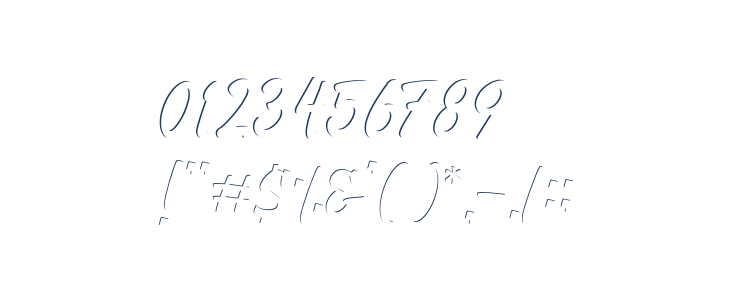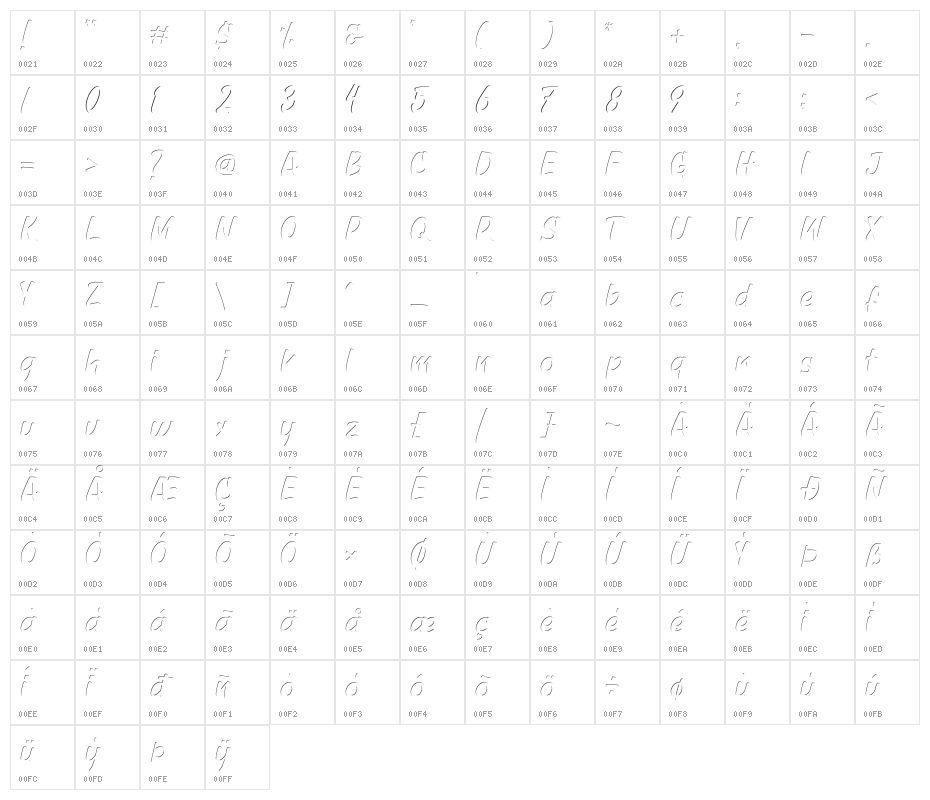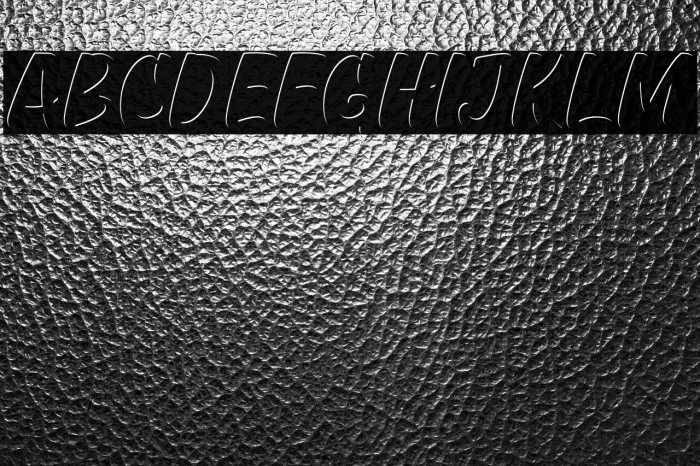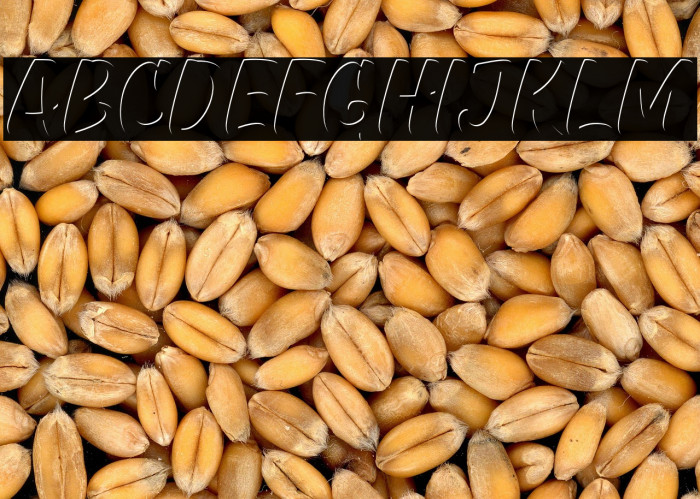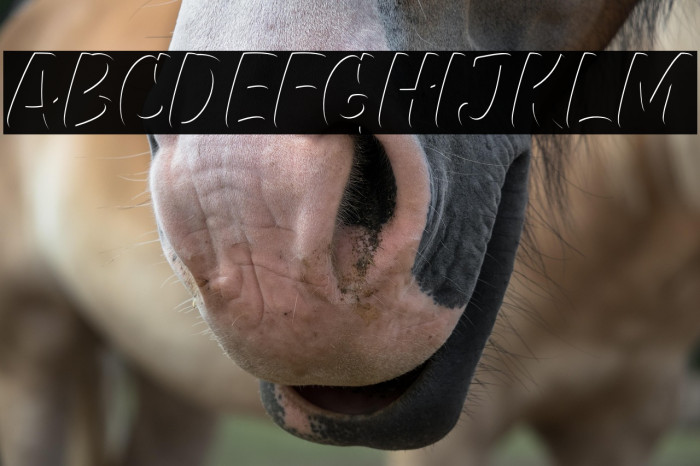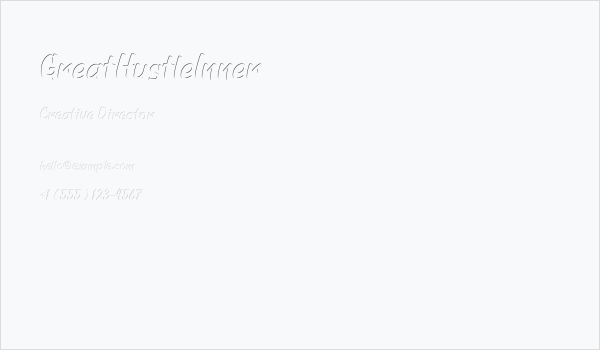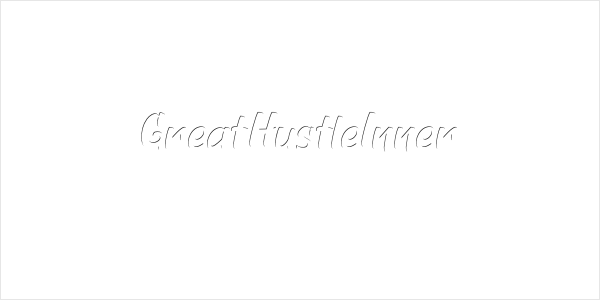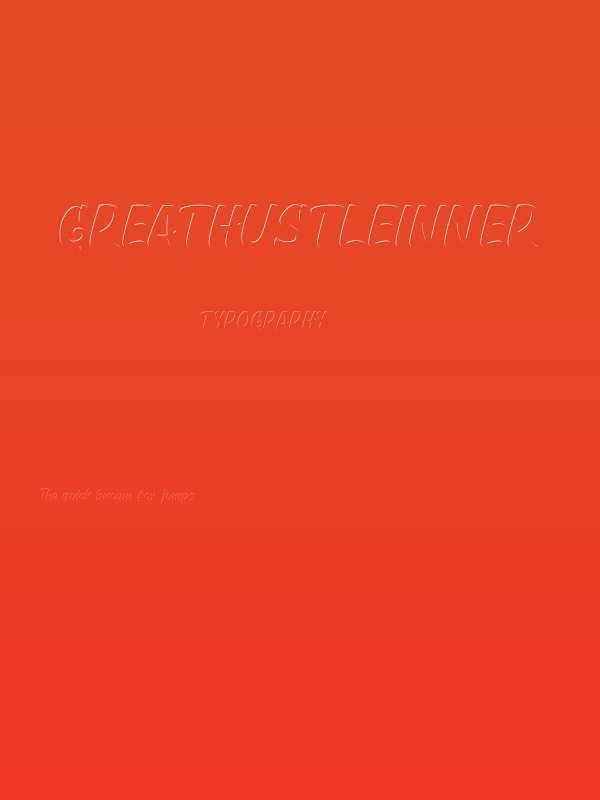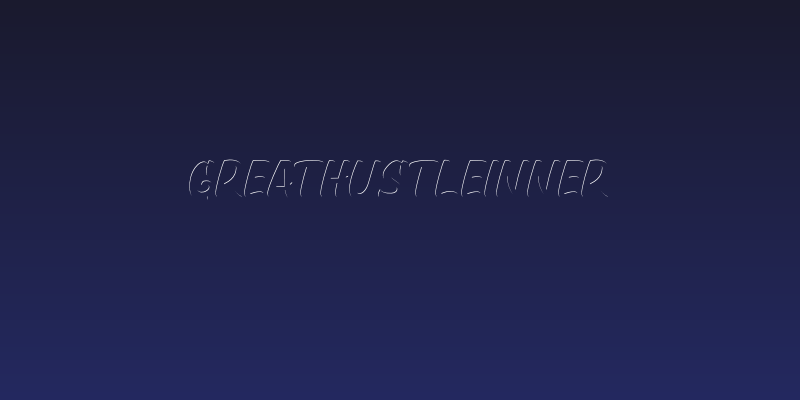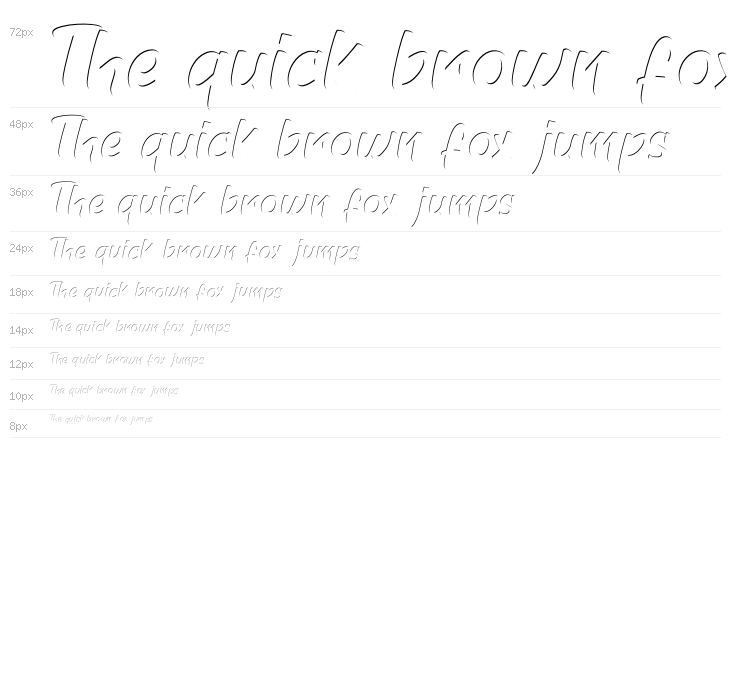
GreatHustleInner Font
GreatHustleInner Description
This font exhibits a dynamic and energetic script style, characterized by its fluid, cursive strokes and a sense of motion. The letters are slightly slanted, adding to the impression of speed and movement. Each character is crafted with a smooth, continuous line that mimics the flow of handwriting. The uppercase letters are bold and prominent, while the lowercase letters maintain a consistent rhythm and balance. The numerals and special characters are designed to complement the overall style, ensuring a cohesive look. This font's unique personality makes it stand out, offering a modern twist on traditional script fonts.